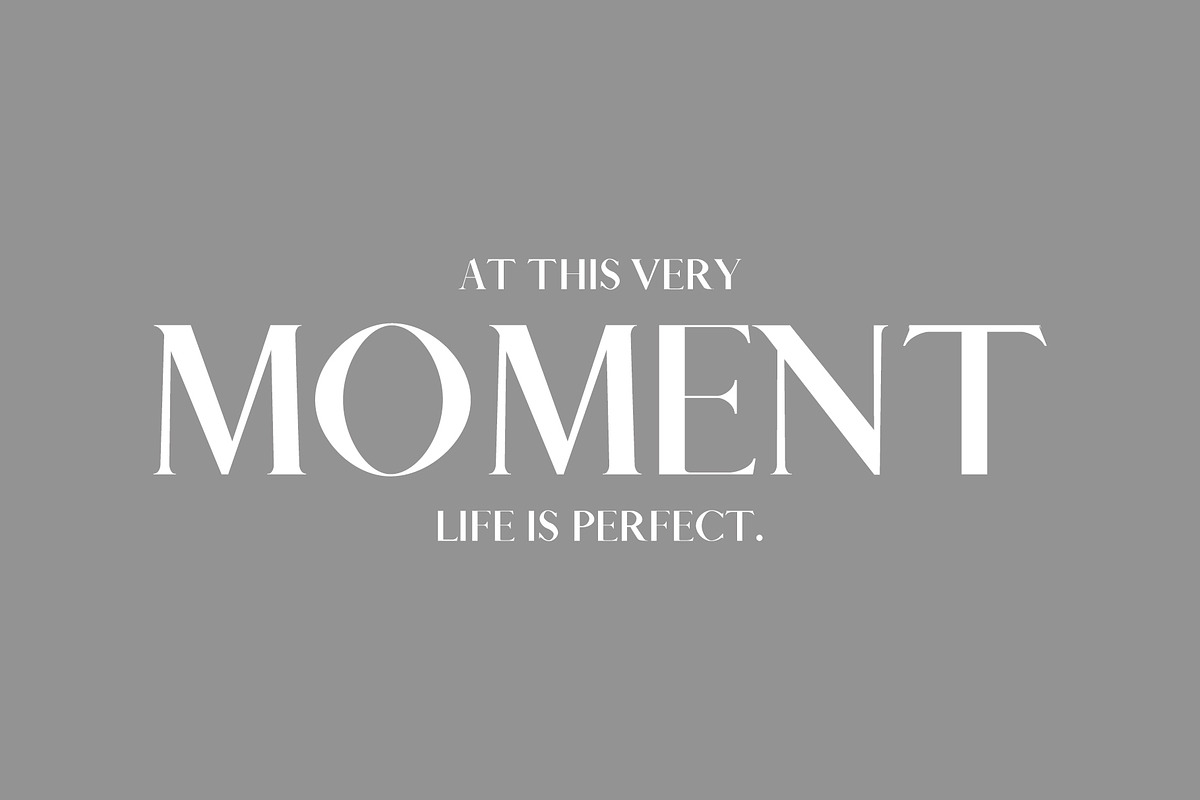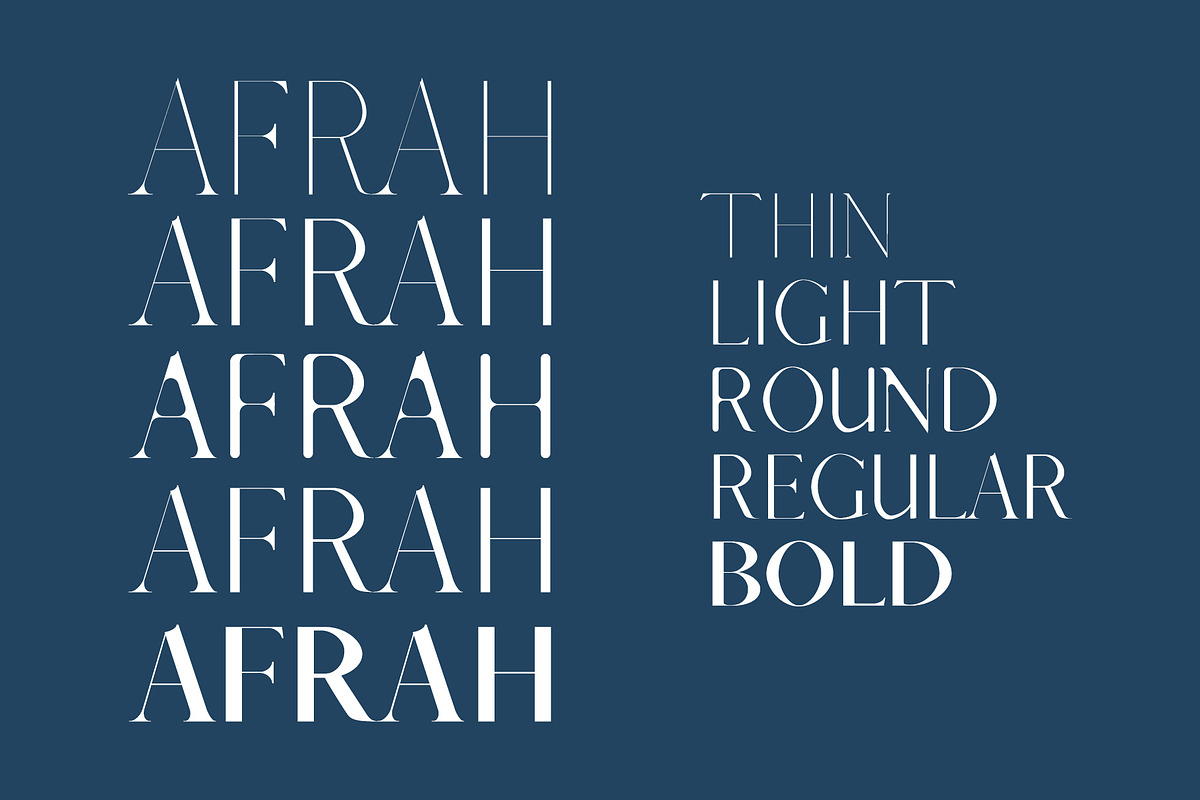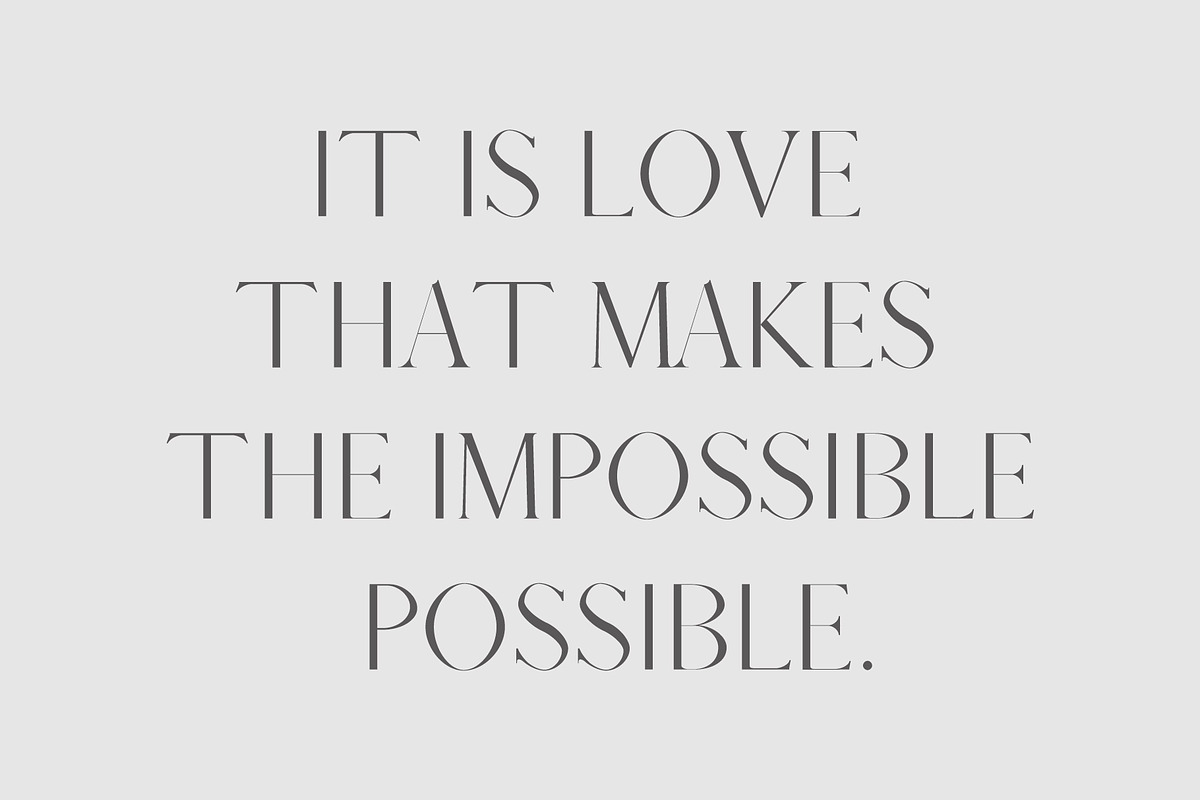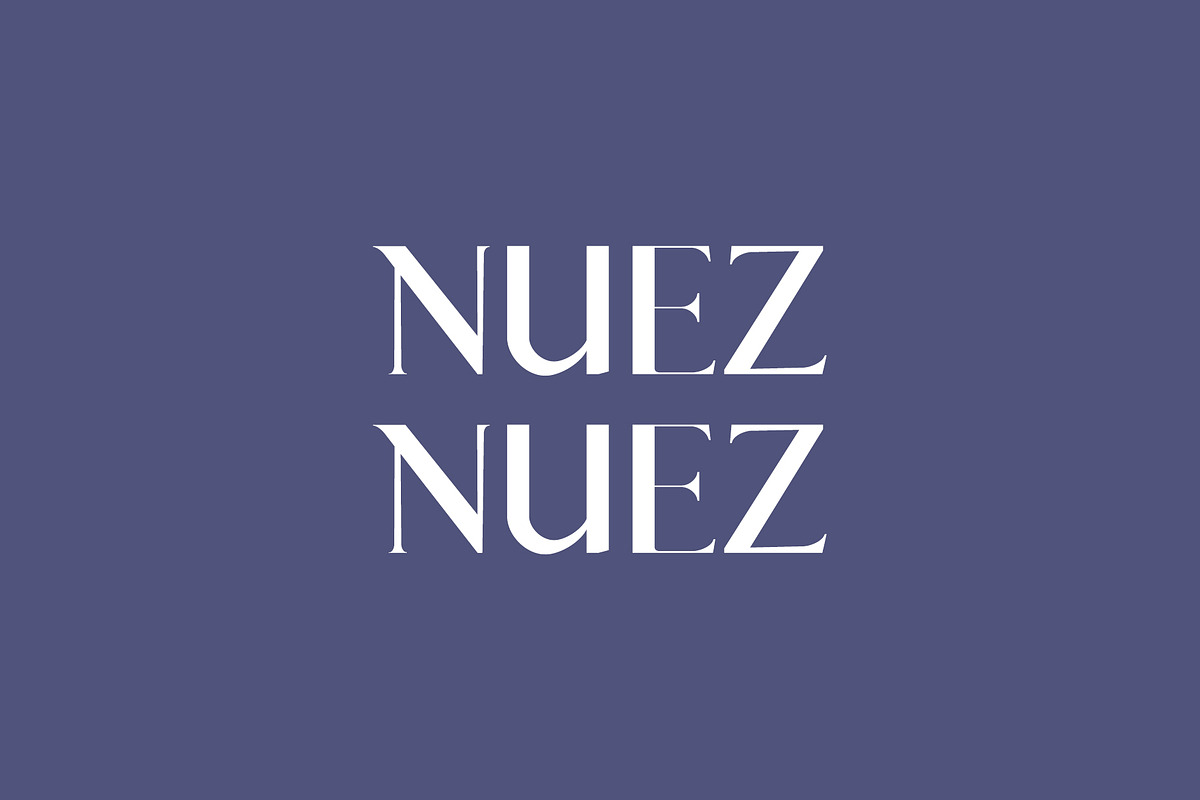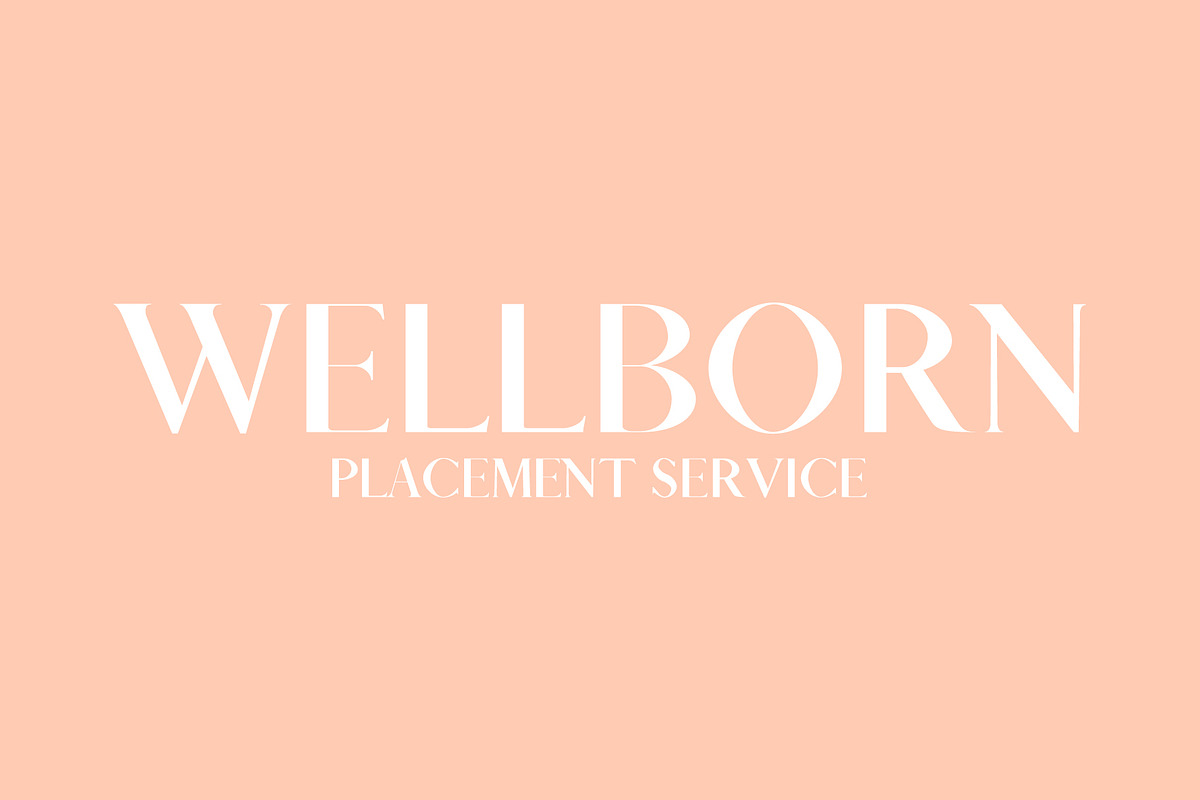
Afrah is a beautiful serif font comes with 5 different weights. It includes all basic glyphs with non-English characters.
It can be used for headlines, posters, branding, packaging, presentations, logo, quotes, titles, magazines headings, web layouts, advertising, invitations, packaging design, books, and nearly any creative design.